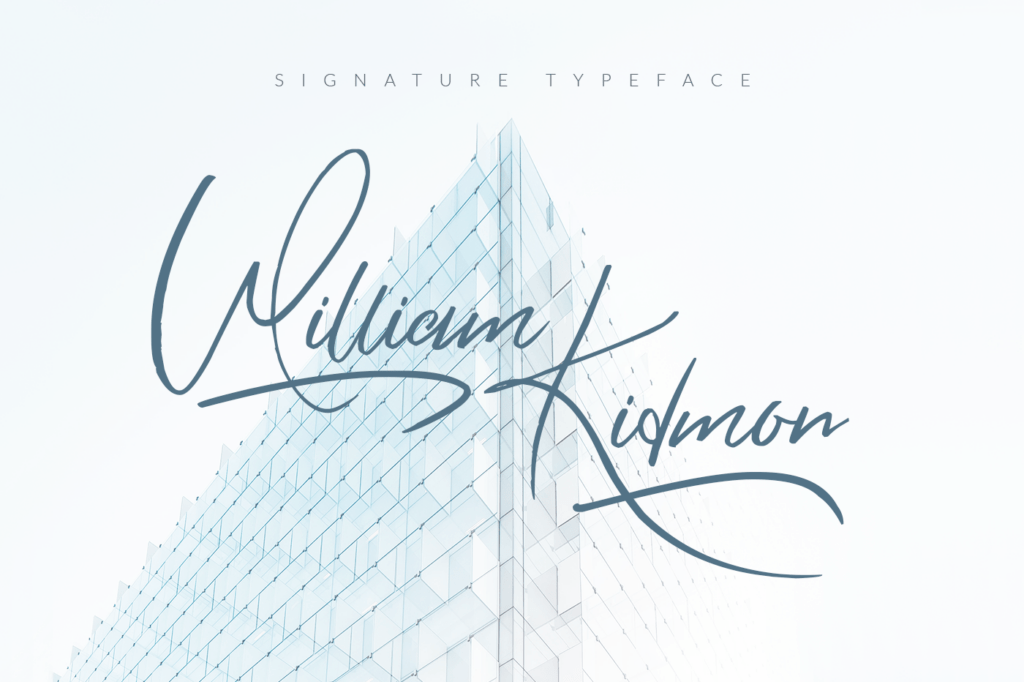
William Kidmon Font
It’s great, I’ve been waiting to get this font, and now introduced to you, you just enjoy. Introduction William Kidmon Script Font! It is the best premium font you can ever get for free. William Kidmon designed and shared by Font Art. It flows like a signature while you type it. It really shows the art of hand-work. It is very legible even though its nature looks like it has extreme lines.
It is really unique in this regard. Awesome! Isn’t it ?